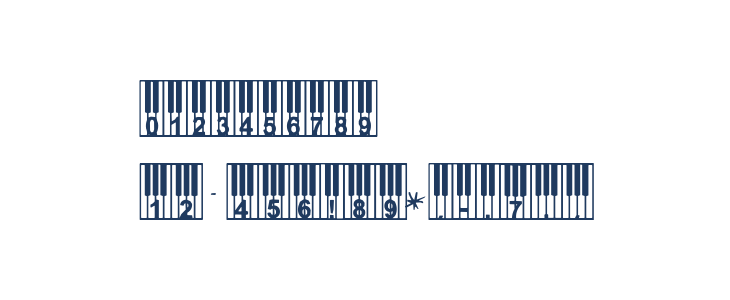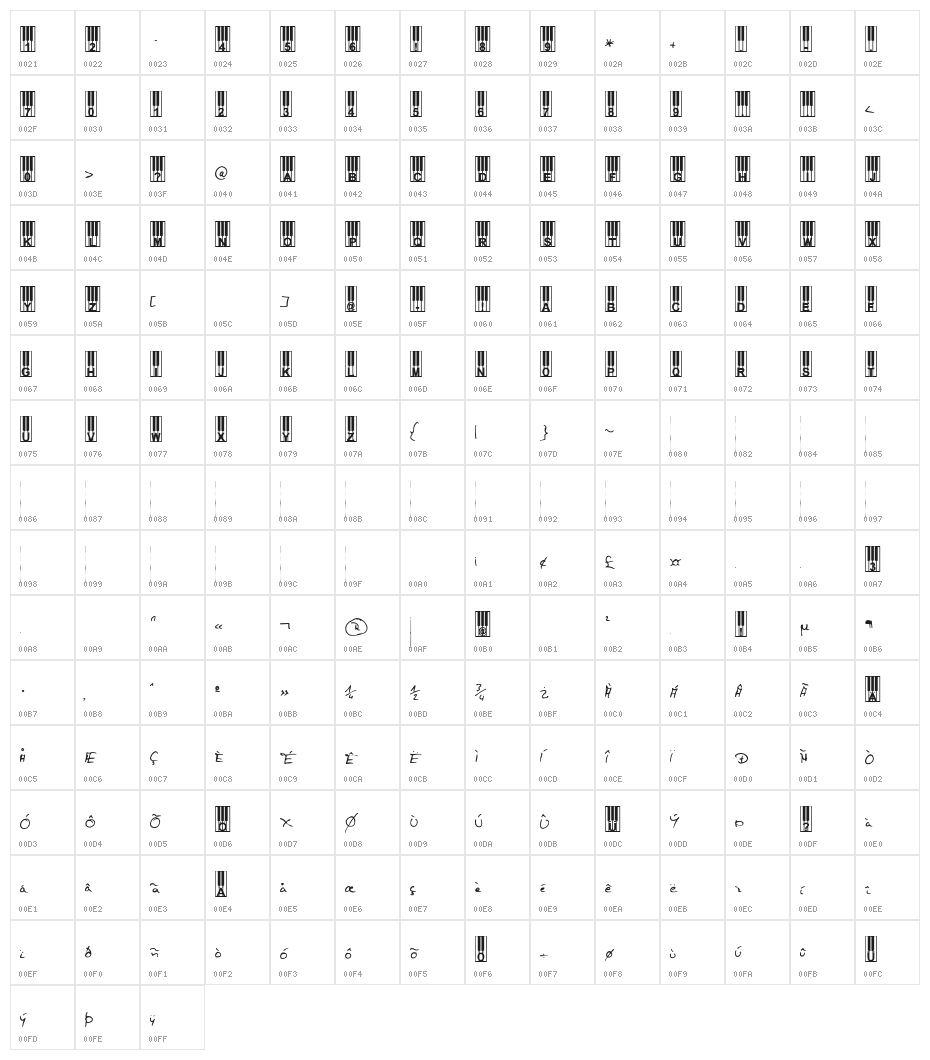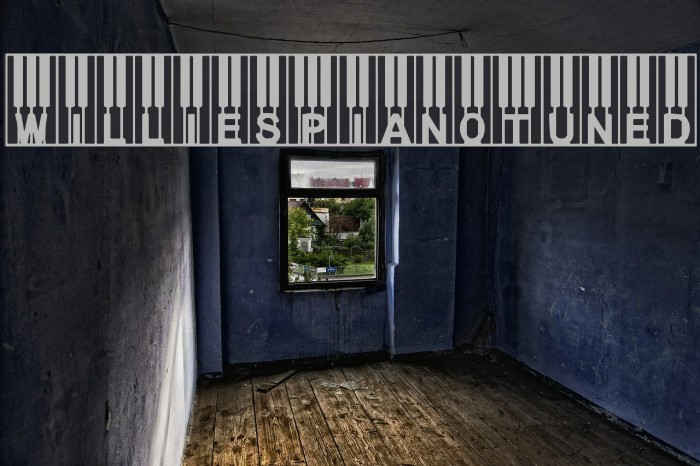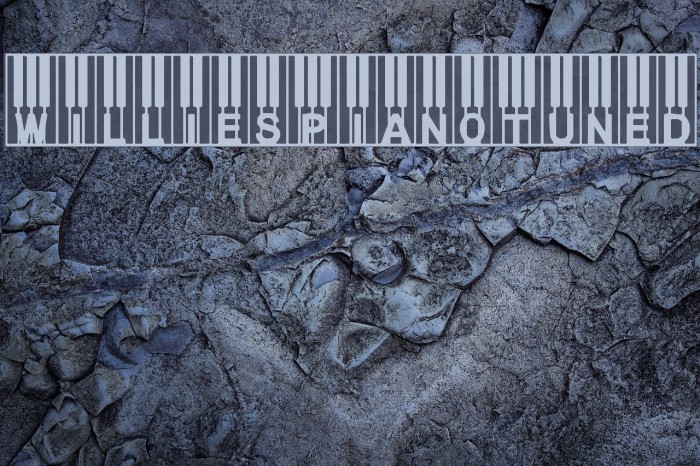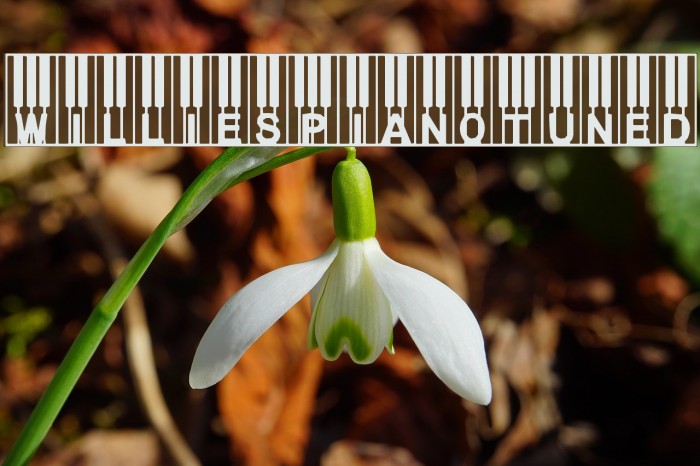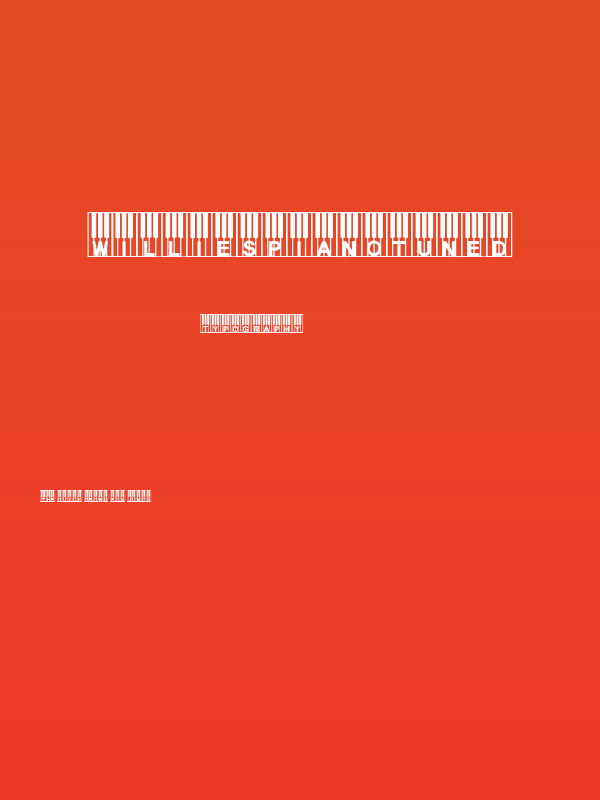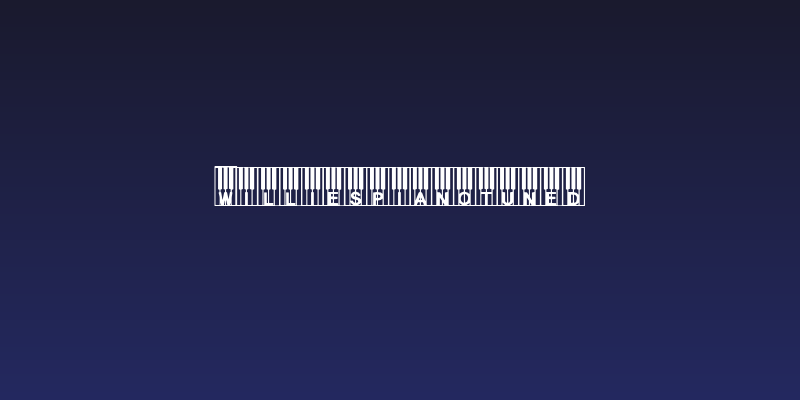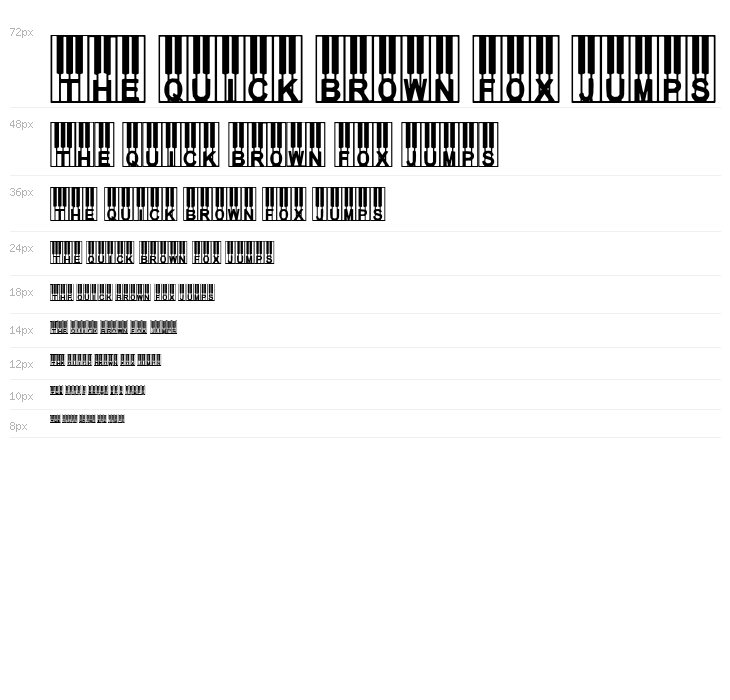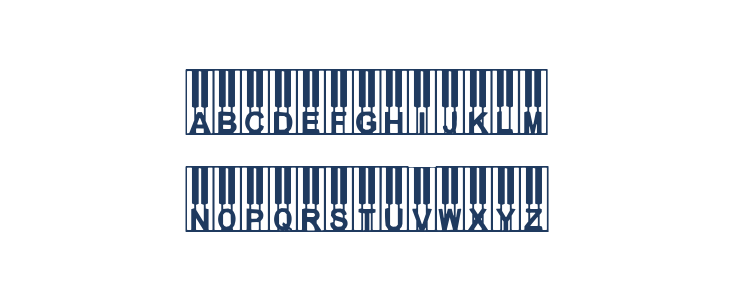
WilliesPianoTuned Font
WilliesPianoTuned Description
This unique decorative font features characters embedded within piano key graphics, creating a playful and musical aesthetic. Each letter and number is cleverly integrated into the black and white keys of a piano, making it ideal for designs that require a creative and thematic touch. The font maintains a consistent style across all characters, ensuring readability while adding a distinctive flair. The bold and clear design of the characters ensures they stand out against the intricate background, making it suitable for eye-catching headlines or themed projects.